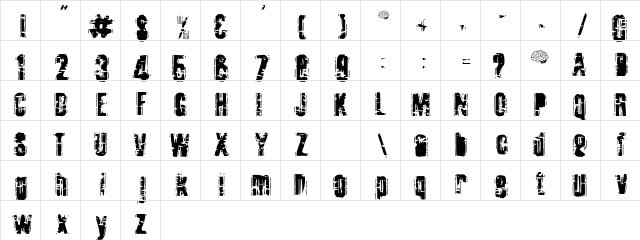
Tooth Ache Regular
Design Context for Tooth Ache Typeface
Tooth Ache is a composed and adaptable typeface that performs quietly and consistently across a wide range of design contexts.